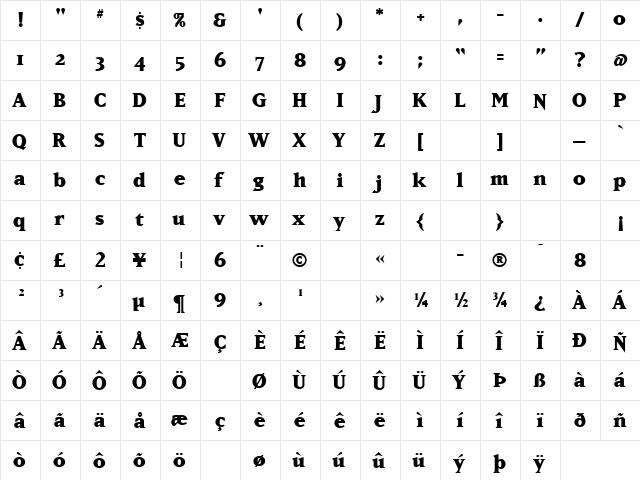
MatrixExtraBold Regular Font Preview
MatrixExtraBold Regular
MatrixExtraBold Regular Font Details
Design Context for MatrixExtraBold Typeface
MatrixExtraBold takes a measured approach to typography — its balanced proportions and neutral character make it a reliable workhorse for both digital and print work. Its bold stroke weight gives it real presence on the page.